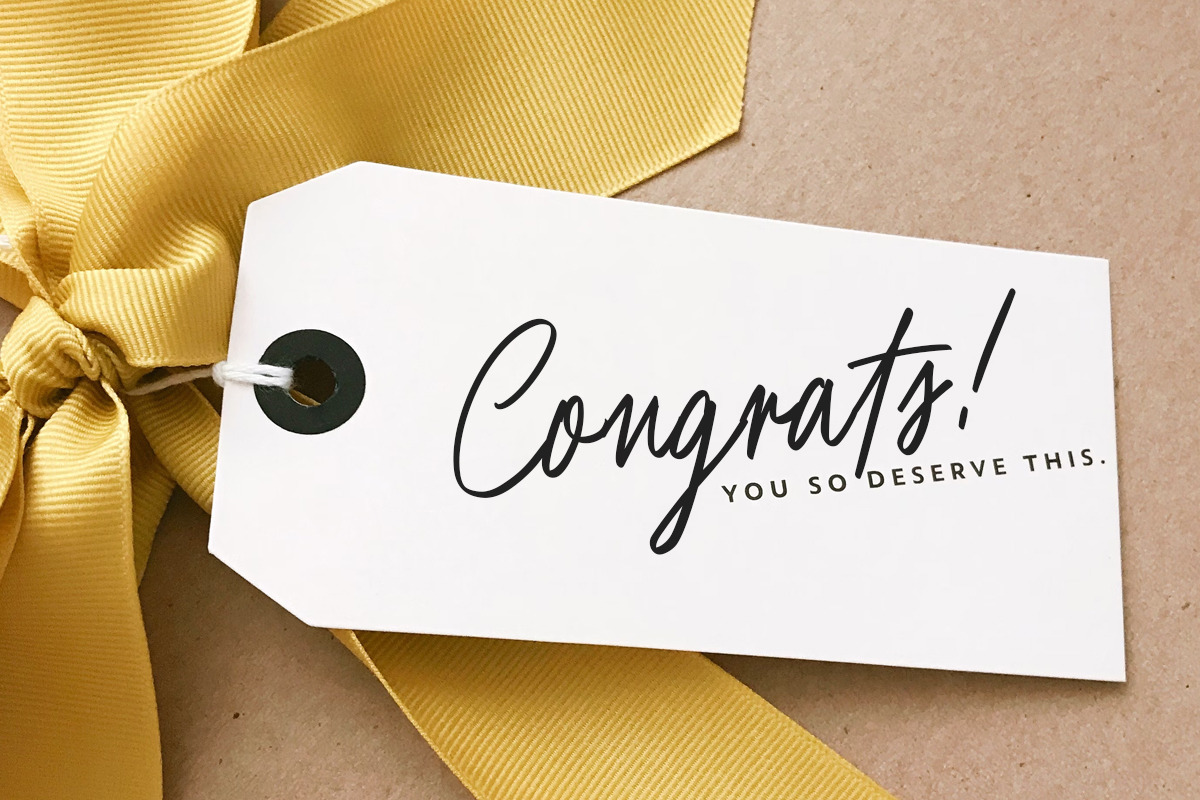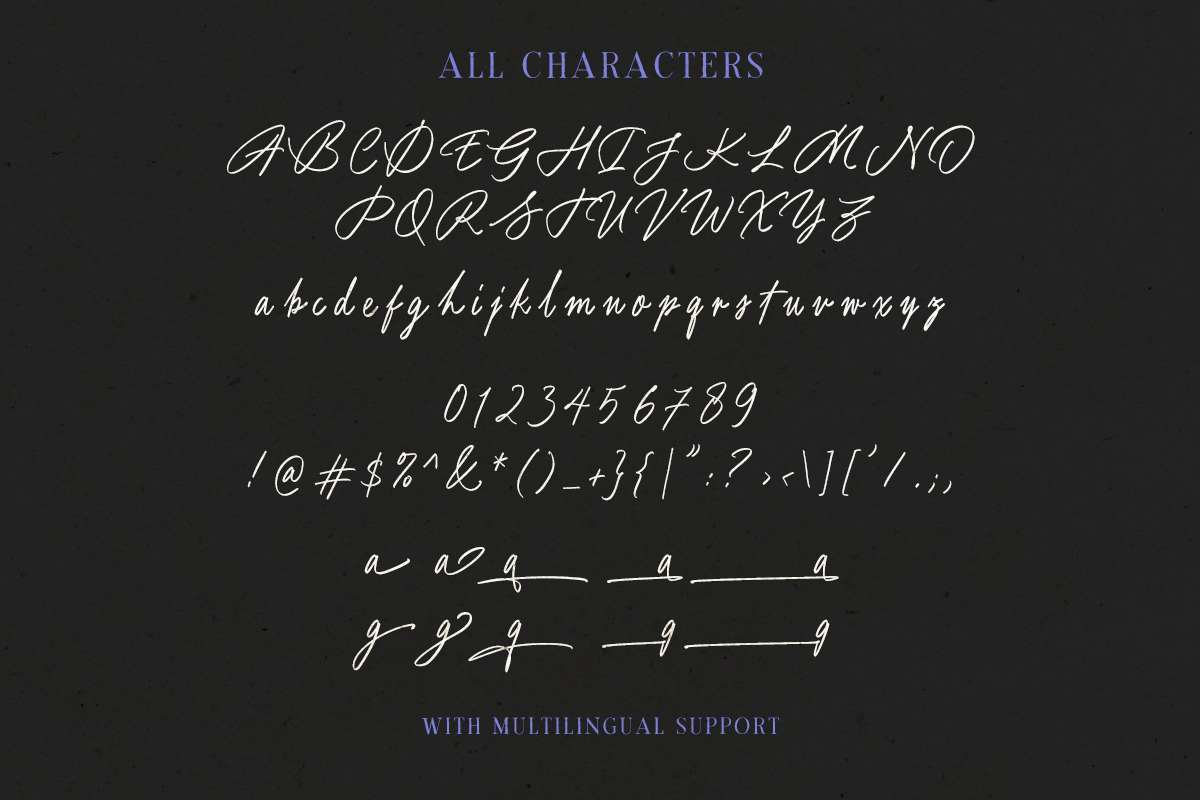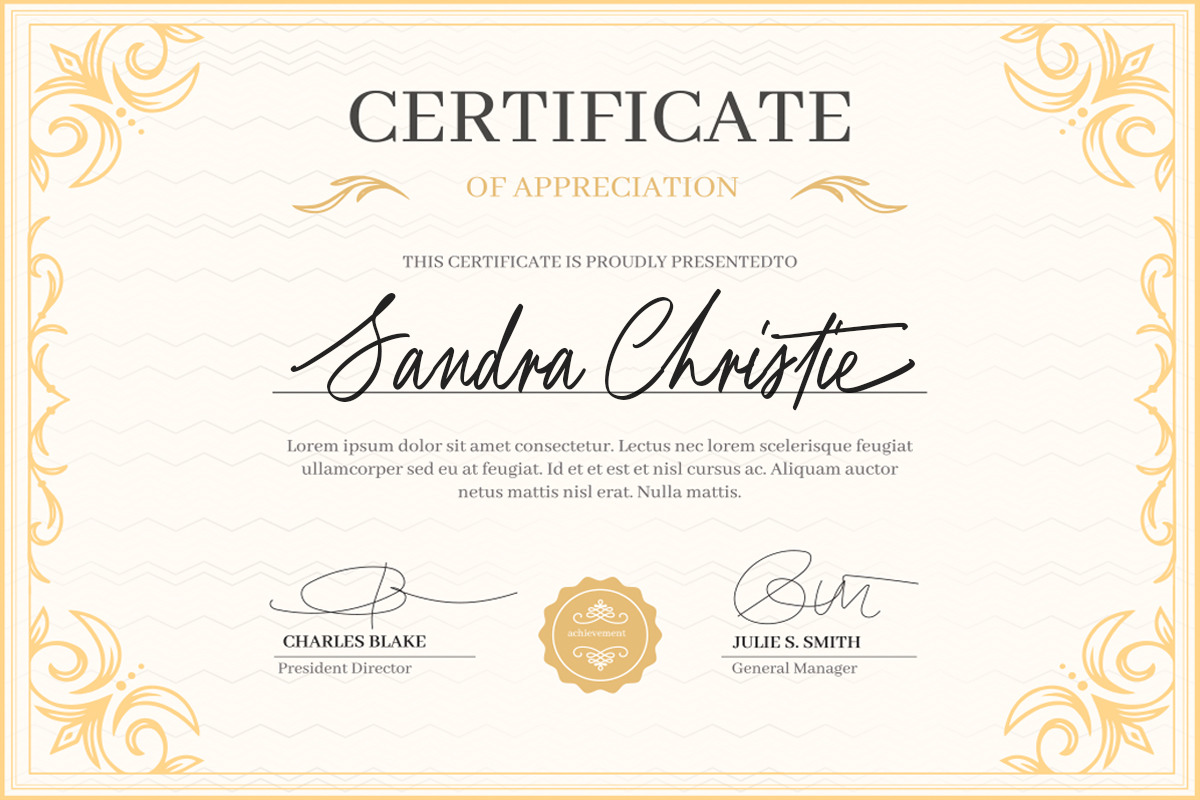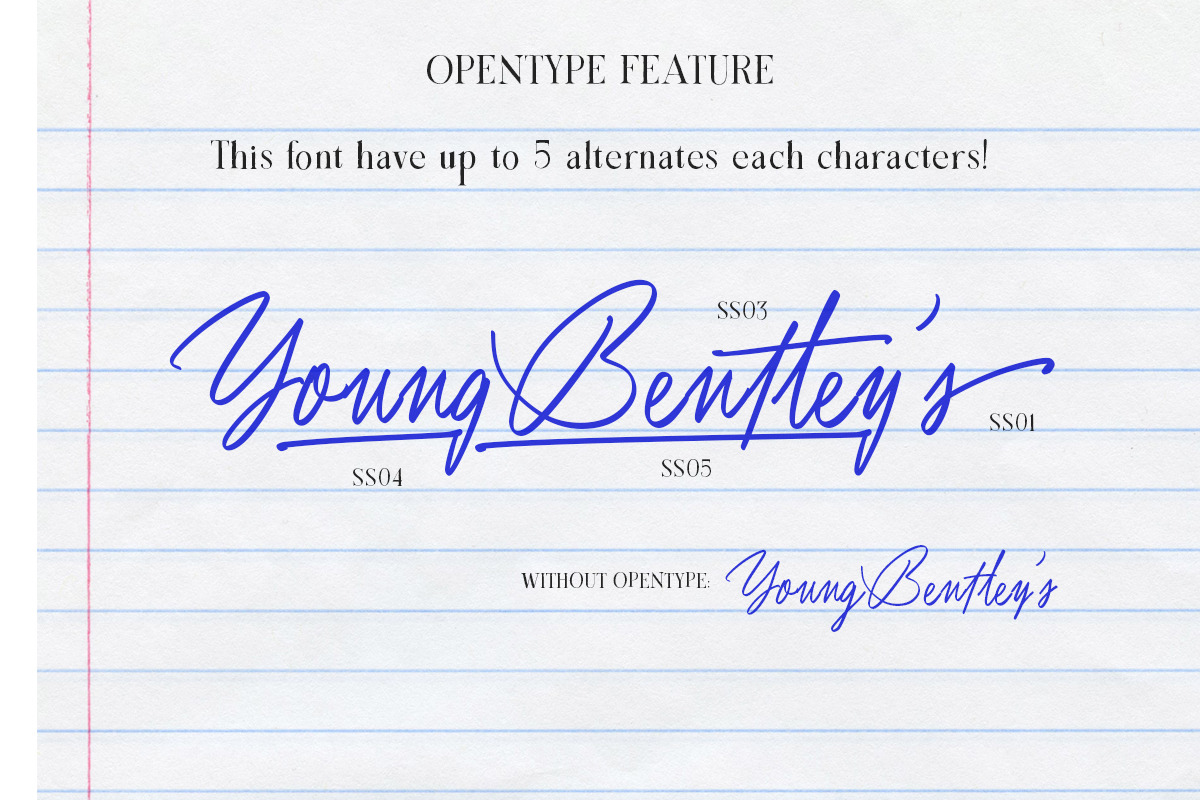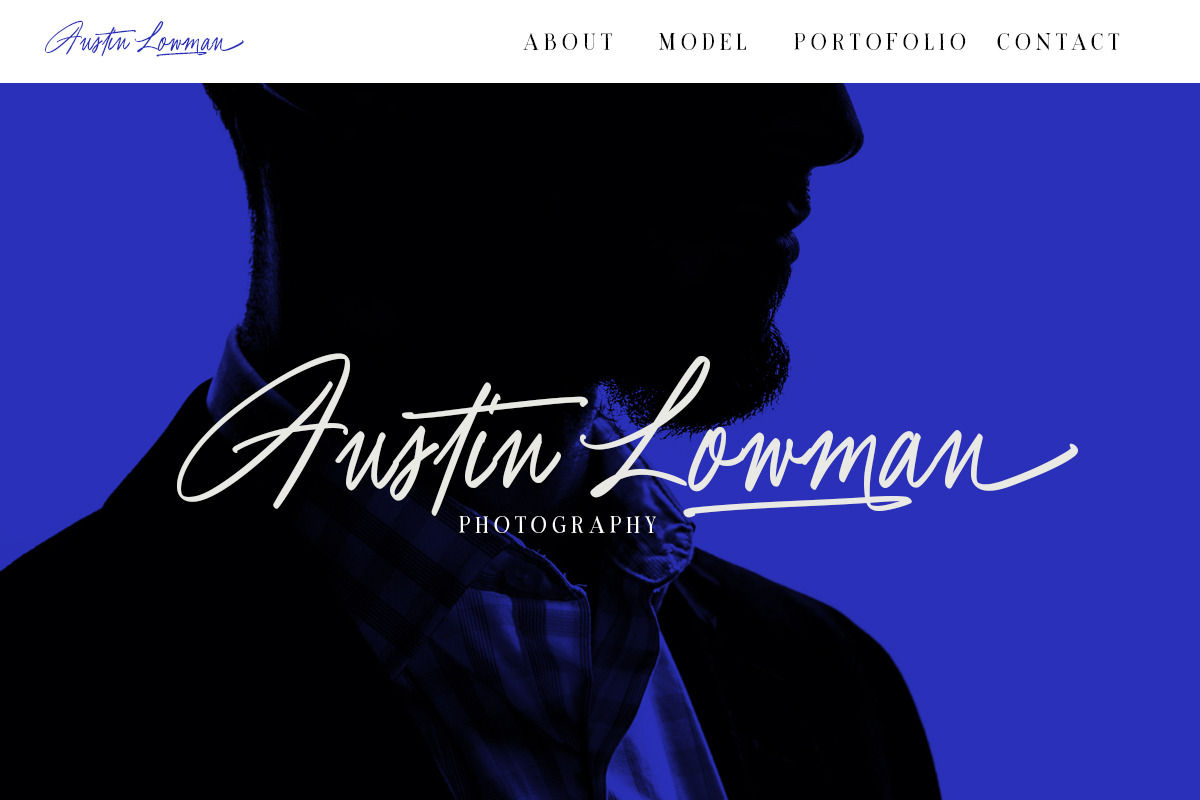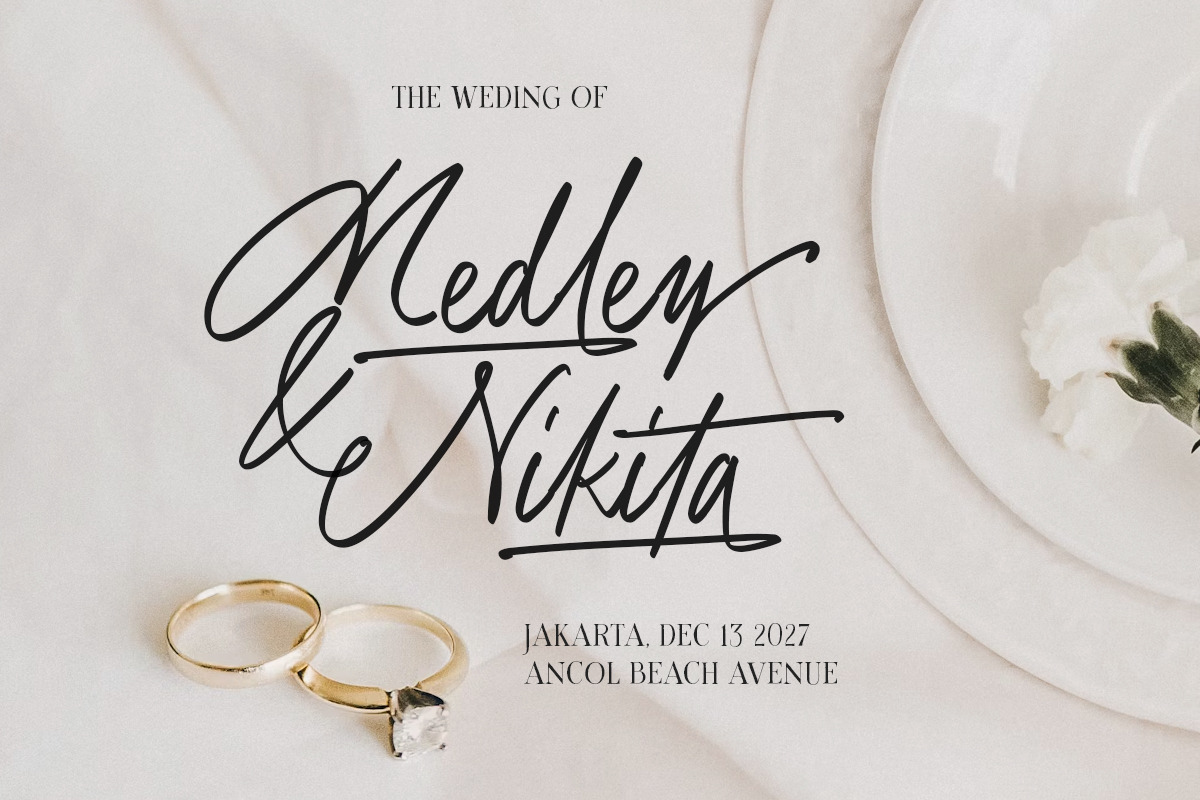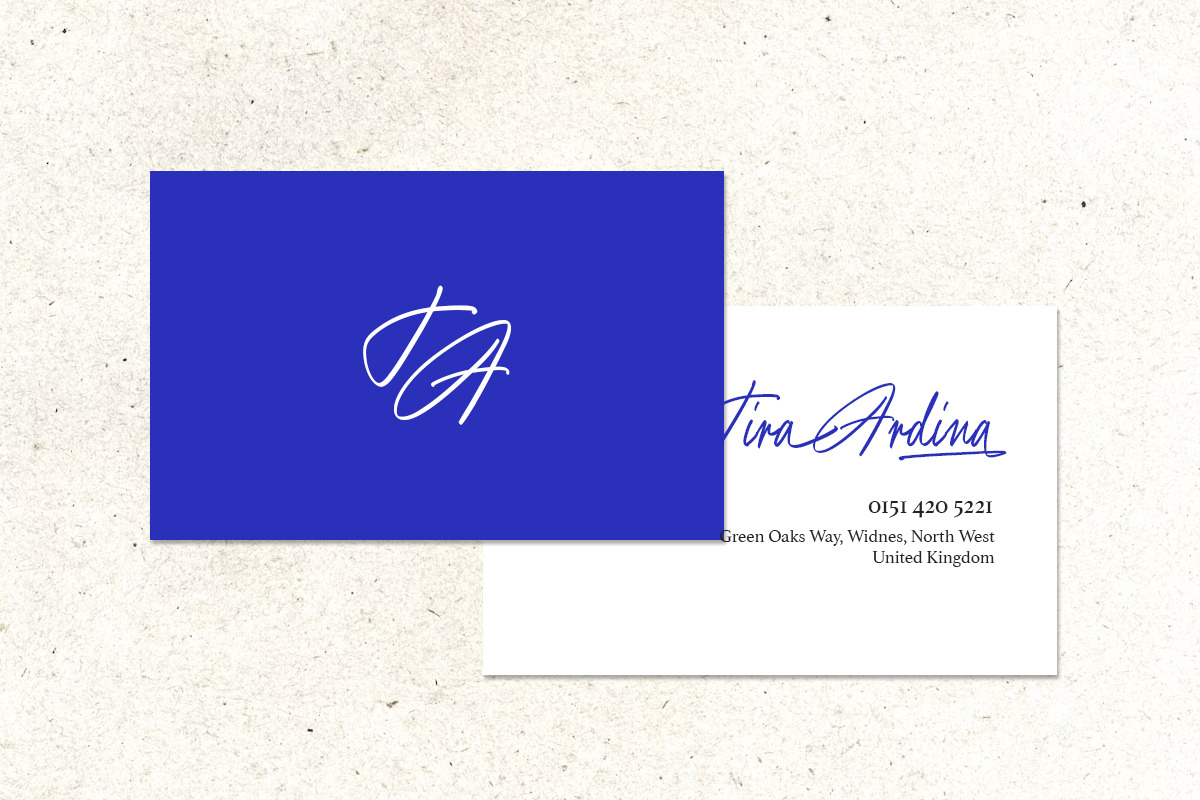
Young Bentley's Stylish Script
Young Bentley's is a stylish handwritten signature font with smooth, natural curves and an effortless flow. It captures the look of genuine pen strokes, bringing elegance and modern charm to your designs. Perfect for logos, branding, invitations, packaging, and anything that needs a refined handwritten touch, this font adds a sense of class and authenticity without trying too hard.